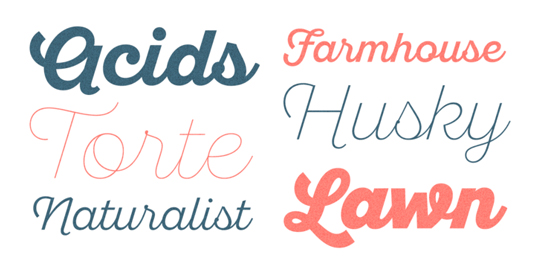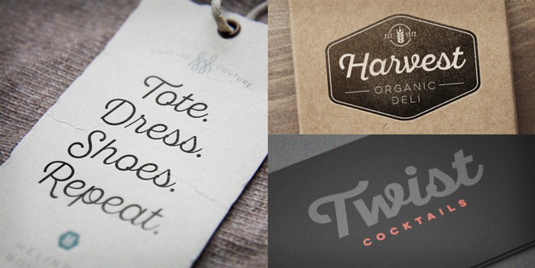
Font of the day: Sant’Elia Script
Every day we showcase the best fonts on the web. Today it's Sant’Elia Script by Ryan Martinson.
Sant’Elia Script by Ryan Martinson
A robust typeface, Sant'Elia Script was created by type designer Ryan Martinson. Featuring six weights, with both regular and rough versions, Sant'Elia Script is ideal for any vintage-style design.